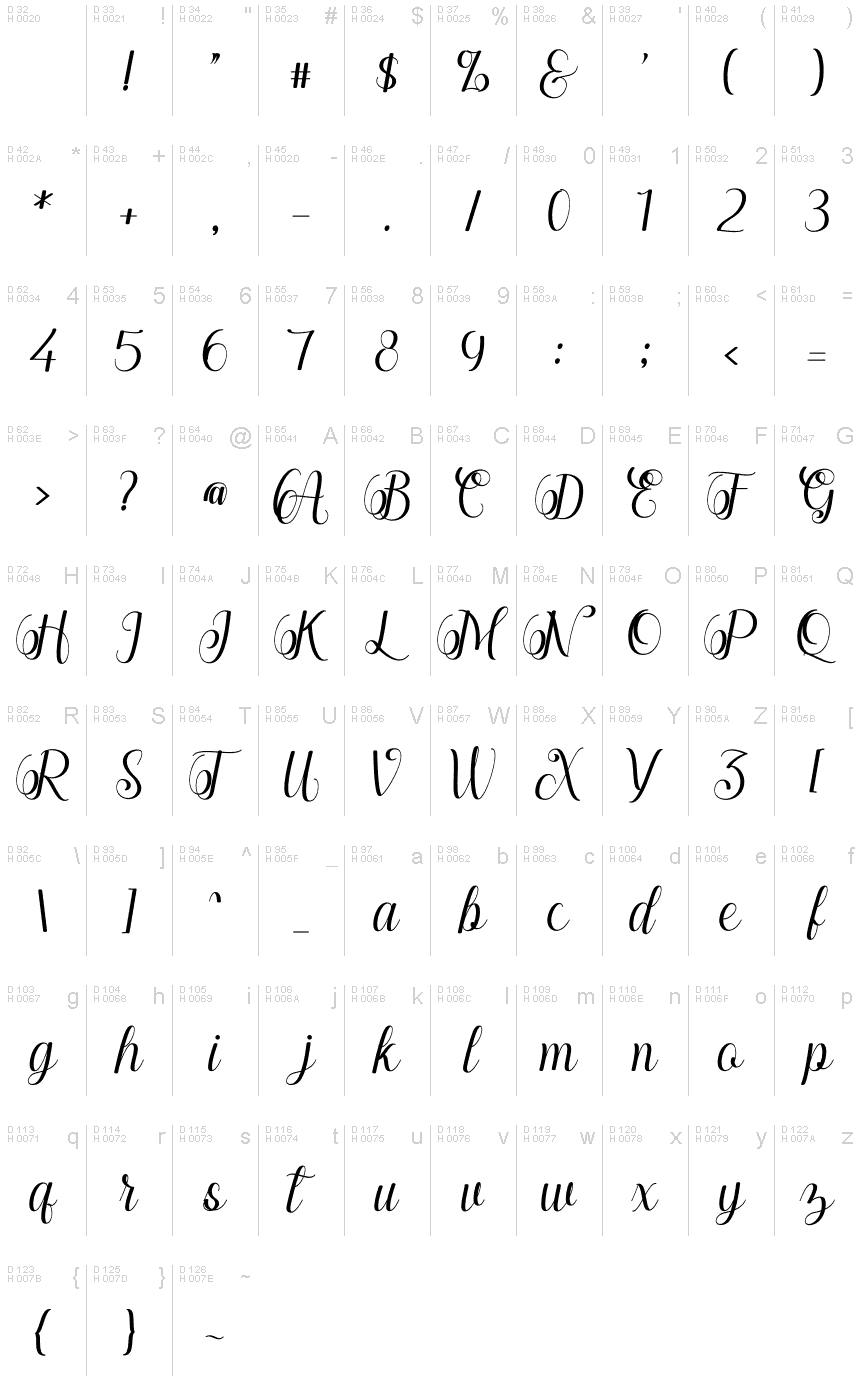
Syakirah font is a lovely calligraphy typeface designed by FiqiArt.
This font is neatly crafted and very detailed. Syakirah is PUA encoded, which means you have easy access to all the glyphs and swashes!